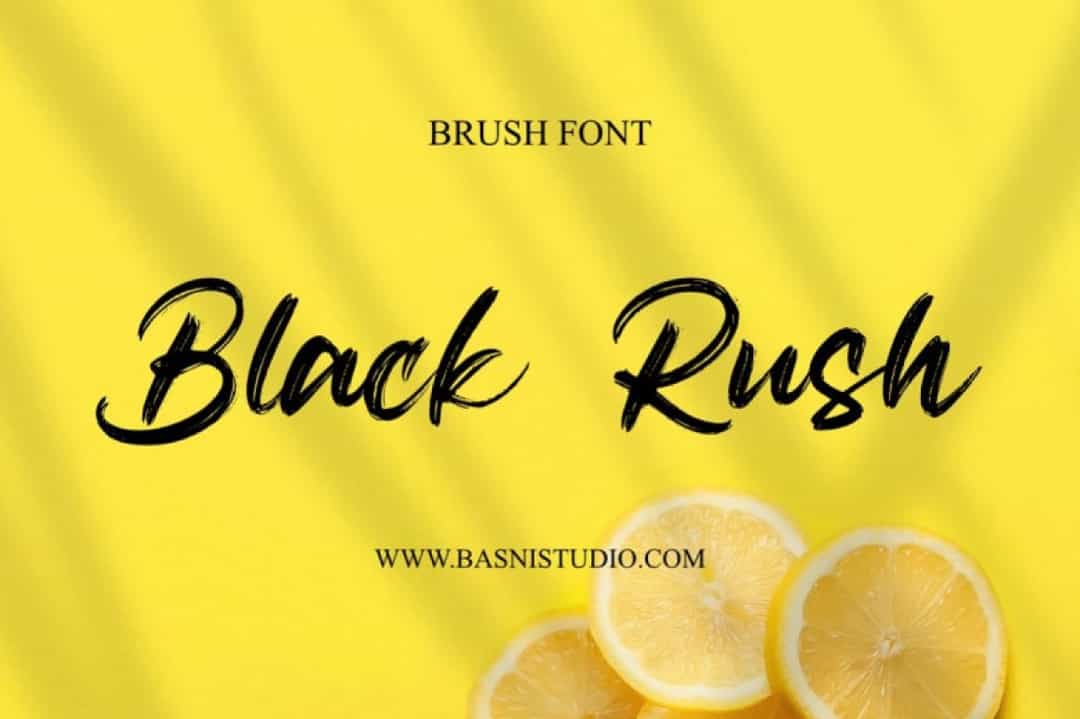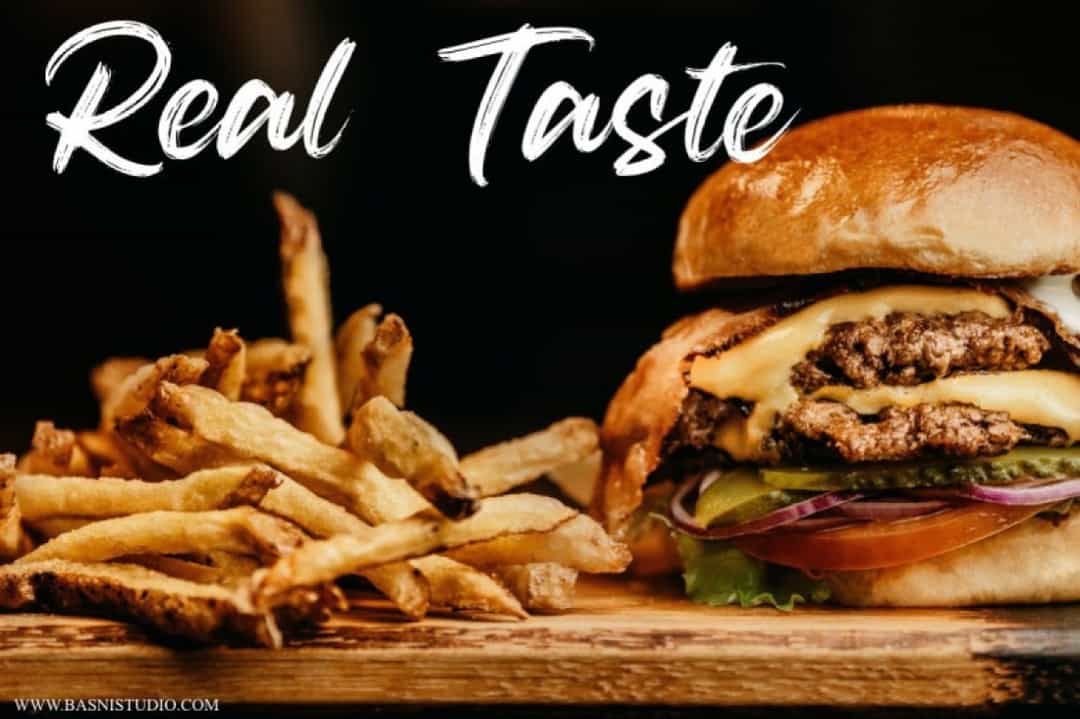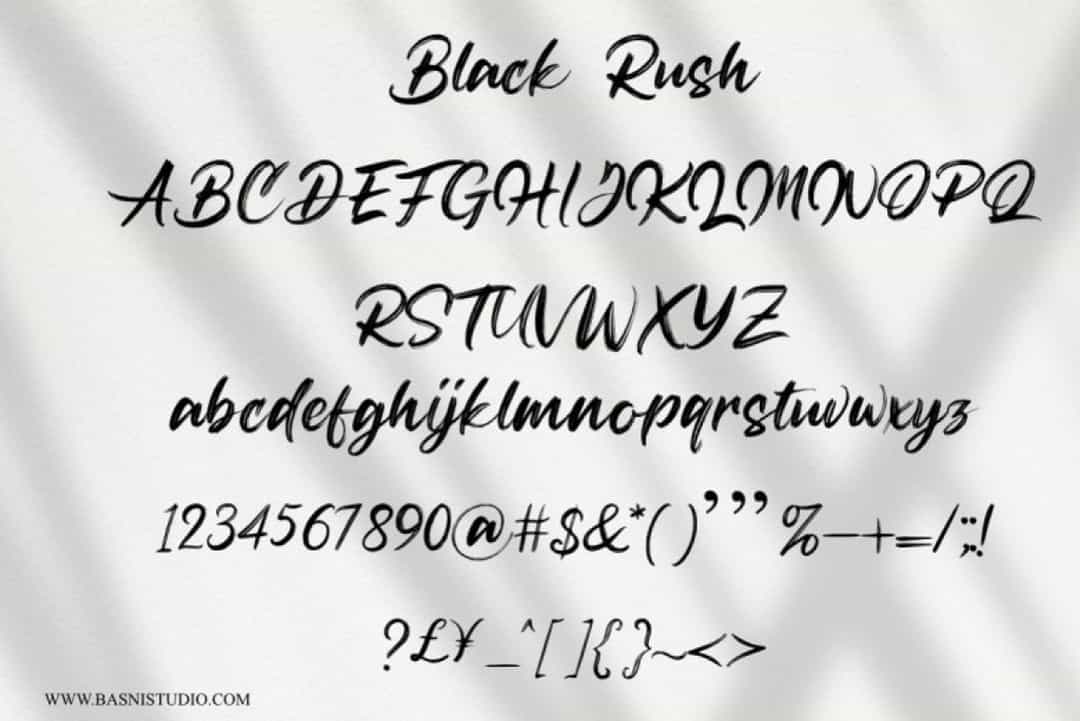
Black Rush font features a natural yet modern aesthetic, created through careful balance of precision and details, perfect for websites, branding projects and editorial design. It includes all upper and lower case letters as well as support for multilingual languages as well as punctuation binding and final swash/initial characters accessible with software that supports OpenType fonts.